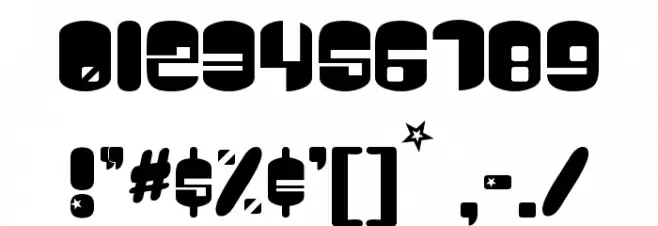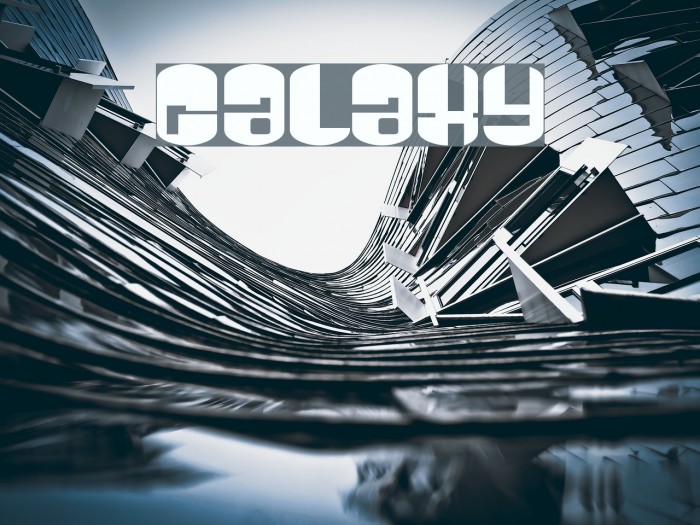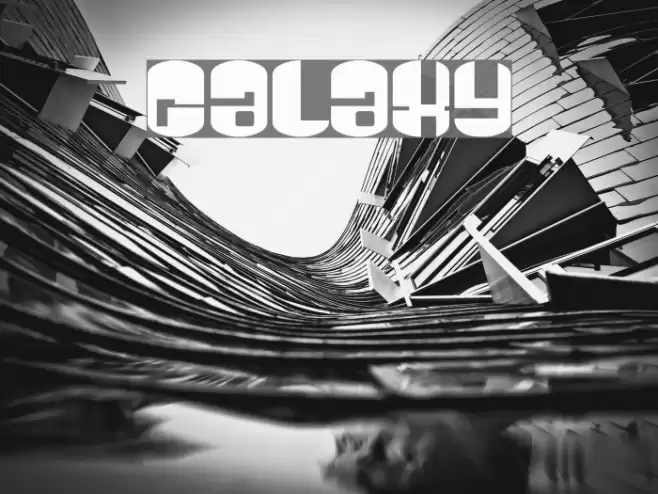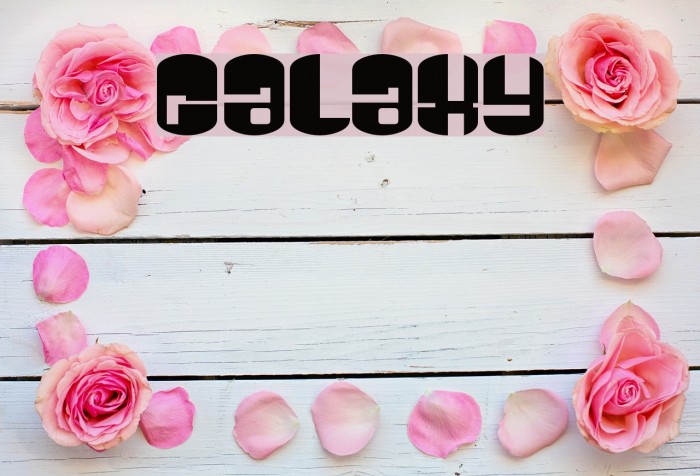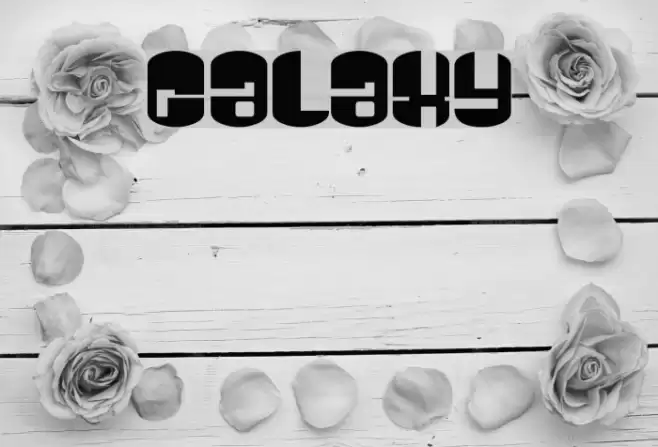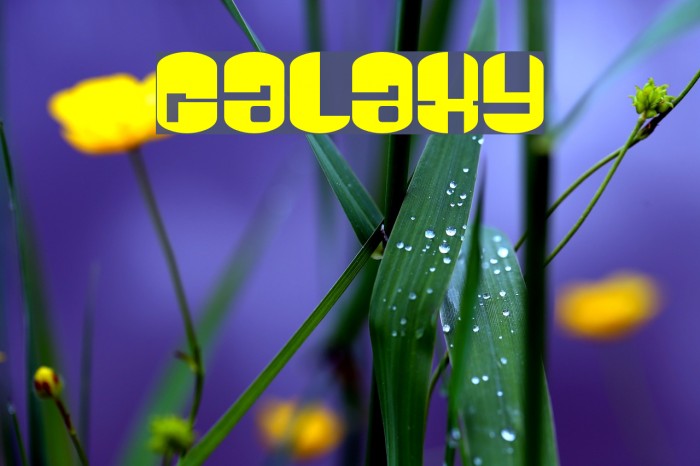
Galaxy Font
Galaxy Description
This font features a bold, rounded style with playful star motifs integrated into several characters, giving it a whimsical and space-themed appearance. The letters are wide and have a consistent thickness, contributing to a strong visual impact. The use of stars within the characters adds a decorative element, making it ideal for creative and fun projects. The numbers and special characters maintain the same bold and rounded design, ensuring consistency across all glyphs.
| Proposed Projects | Ideal for children's book covers, space-themed posters, party invitations, and playful branding. |